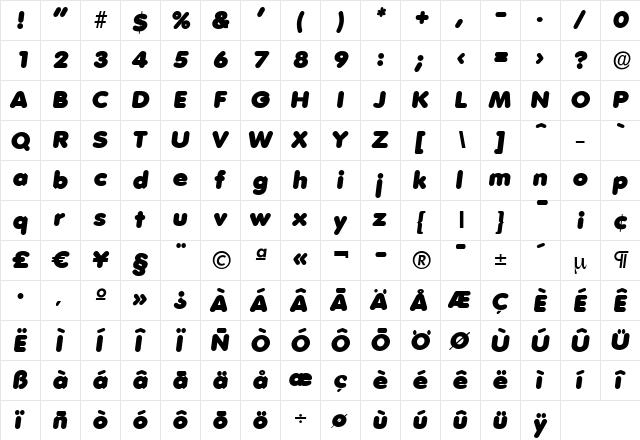
RolandBecker-Black Italic
Design Context for RolandBecker-Black Typeface
RolandBecker-Black offers clean, dependable letterforms without strong stylistic allegiance, making it a practical choice for designers who need flexibility. The slanted form adds forward momentum and visual energy.